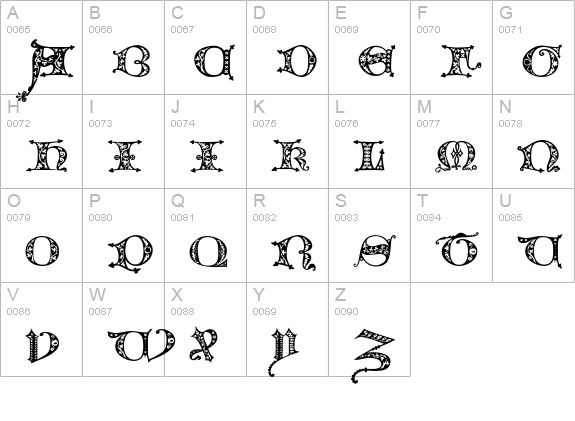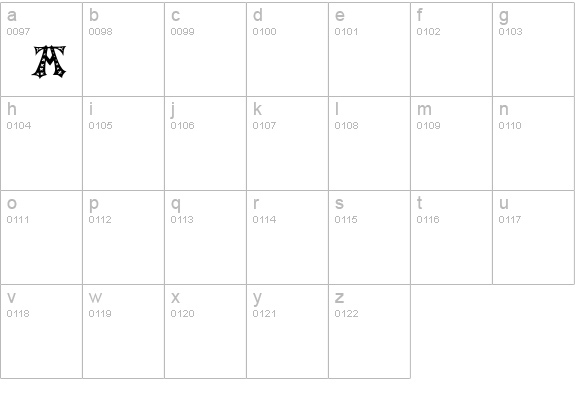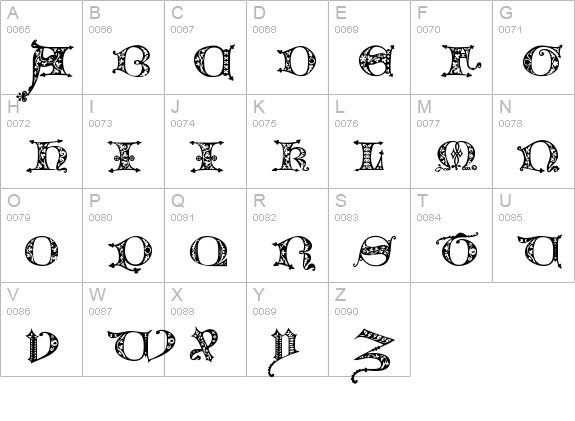
Florimel Font Details
Florimel font is a stunning and elegant typeface that exudes a sense of sophistication and charm. With its delicate curves and graceful lines, this font is perfect for adding a touch of class to your designs. Whether you are working on invitations, branding, or any other creative project, Florimel font will elevate your work to the next level. The best part about Florimel font is that it is free to download at FontsMarket.com. This means that you can access this beautiful font without any cost, making it a valuable addition to your font library. Don't miss out on the opportunity to enhance your designs with the timeless beauty of Florimel font. Download it today and let your creativity shine!